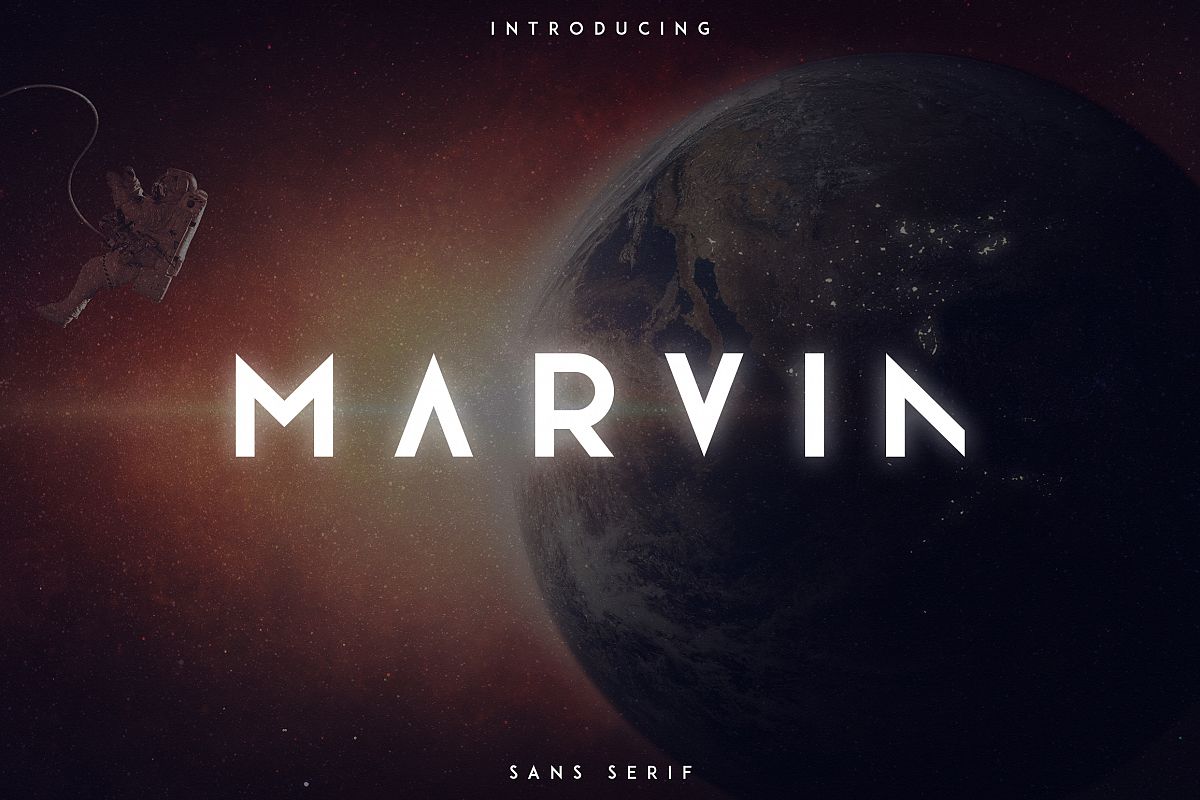
Marvin - 3 font styles
Marvin-Regular
Marvin-Outline
Marvin-Rough
Marvin is bold, clean sans serif typeface with 3 fonts and multilingual support. It's a very versatile font that works great in large and small sizes.Marvin is perfect for branding projects, home-ware designs, product packaging, magazine headers - or simply as a stylish text overlay to any background image.
• Regular
• Rough
• Outline
• Alternative glyphs